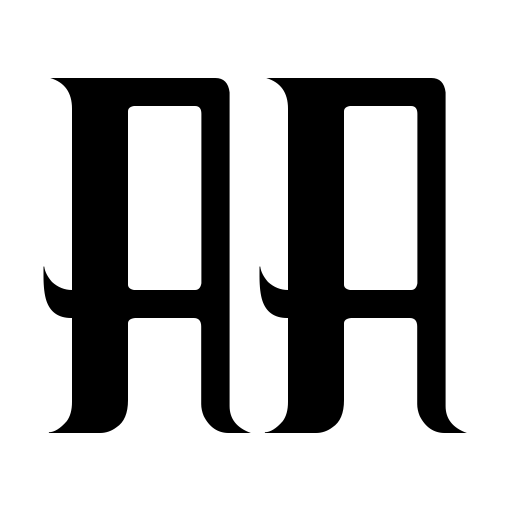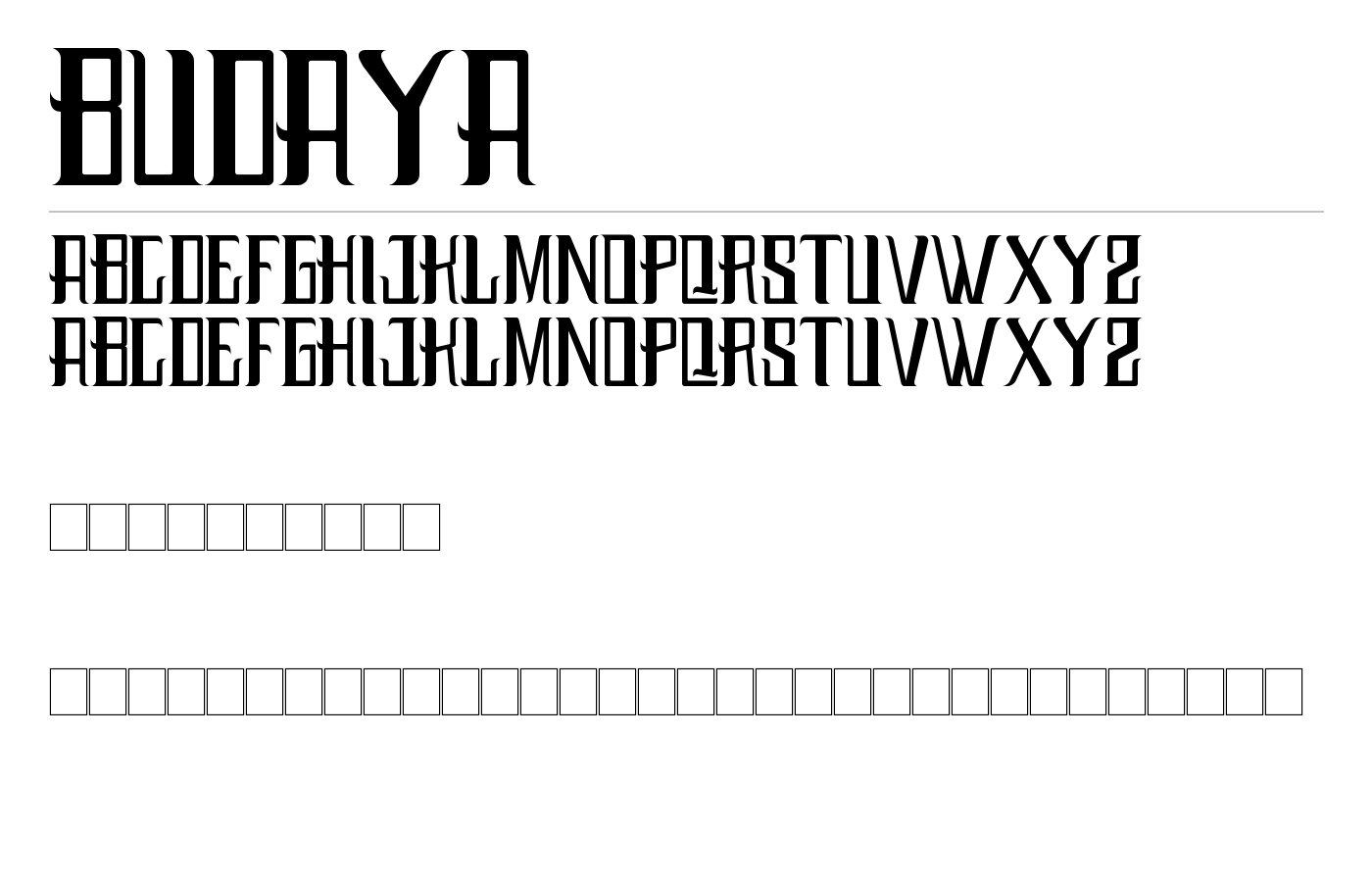
Budaya is a condensed serif font with a tall, narrow structure and sharp, angular serifs that give it a unique, vintage-inspired character. It features medium contrast between thick and thin strokes and distinctive letterforms, making it ideal for eye-catching headlines, logos, and branding that aim to convey elegance with a touch of old-world style. This font works well in editorial designs, posters, and fashion-related projects where a dramatic yet refined look is desired.
Budaya Font
About Budaya Font